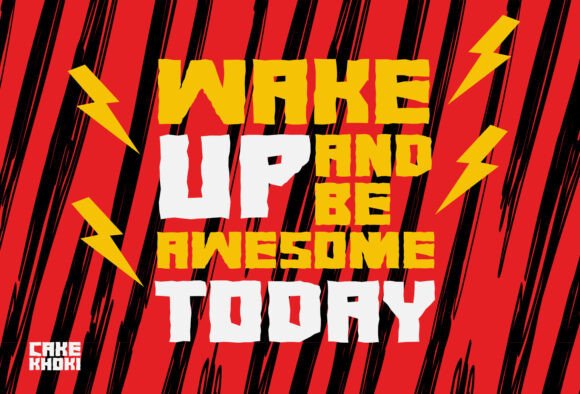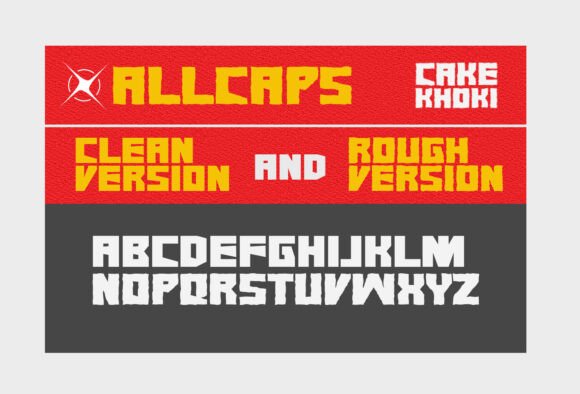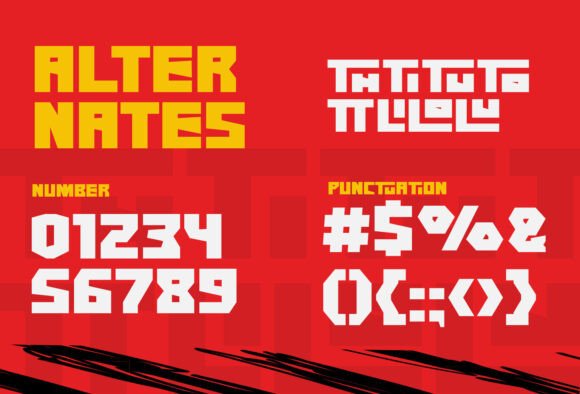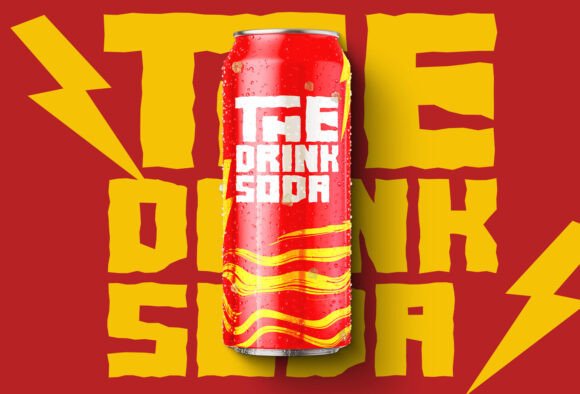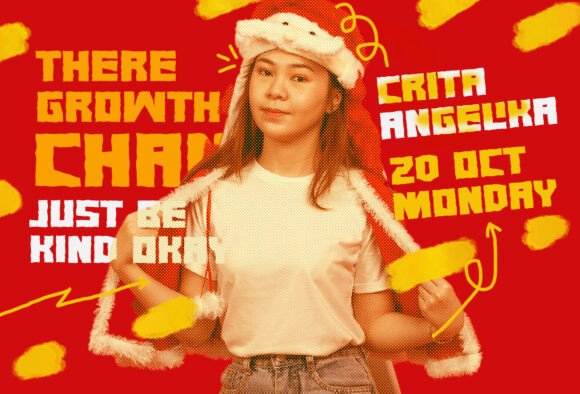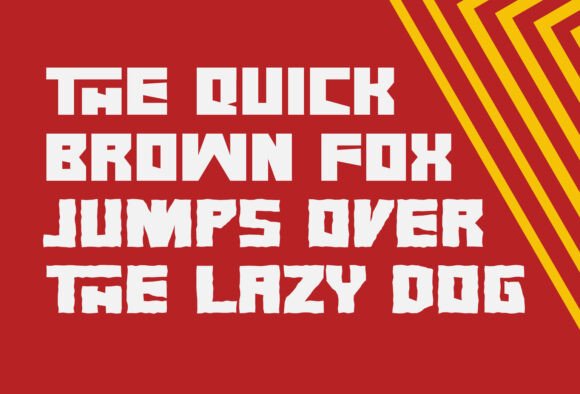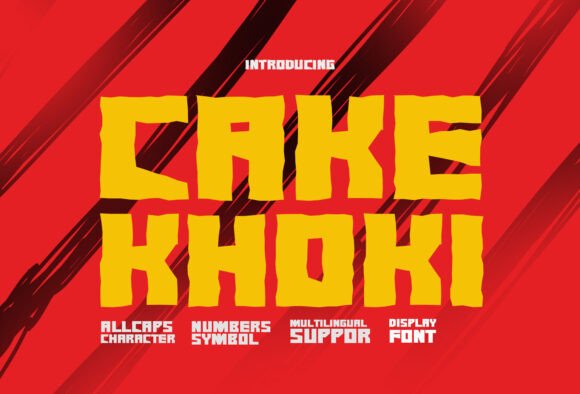
Cake Khoki Font: The Perfect Addition to Your Design Projects
Are you tired of using the same old fonts for your design projects? Look no further than Cake Khoki Font! This bold and playful font is perfect for adding a touch of fun and whimsy to any design. In this article, we’ll take a closer look at Cake Khoki Font, its features, and how you can use it to take your designs to the next level.
What is Cake Khoki Font?
Cake Khoki Font is a bold and playful font that is designed to make your text stand out. Its lively letters add a cheerful and eye-catching touch to any design, making it perfect for fun posters, invitations, and creative projects. Whether you’re a designer, crafter, or DIY enthusiast, Cake Khoki Font is a great addition to your font collection.
Features of Cake Khoki Font
Cake Khoki Font has several features that make it a great choice for designers and crafters. Some of its key features include:
- Bold and Playful: Cake Khoki Font is a bold and playful font that is designed to grab attention.
- Easy to Read: Despite its bold and playful nature, Cake Khoki Font is easy to read, making it perfect for use in a variety of designs.
- Versatile: Cake Khoki Font can be used in a variety of designs, from fun posters and invitations to creative projects and crafts.
- Unique: Cake Khoki Font has a unique and distinctive style that sets it apart from other fonts.
How to Use Cake Khoki Font
Cake Khoki Font is easy to use and can be incorporated into a variety of designs. Here are a few ideas for using Cake Khoki Font:
- Fun Posters: Use Cake Khoki Font to create fun and eye-catching posters for events, promotions, or just for fun.
- Invitations: Add a touch of whimsy to your invitations with Cake Khoki Font, perfect for birthday parties, baby showers, and other celebrations.
- Craft Projects: Use Cake Khoki Font to add a personal touch to your craft projects, such as scrapbooking, card making, and DIY gifts.
- Social Media Graphics: Use Cake Khoki Font to create eye-catching social media graphics, perfect for grabbing attention and engaging your audience.
Tips for Using Cake Khoki Font
Here are a few tips for using Cake Khoki Font effectively:
- Use it Sparingly: While Cake Khoki Font is bold and playful, it can be overwhelming if used too much. Use it sparingly to add emphasis and create visual interest.
- Pair it with Other Fonts: Cake Khoki Font pairs well with other fonts, such as serif and sans-serif fonts. Experiment with different font combinations to find the perfect look for your design.
- Experiment with Colors: Cake Khoki Font looks great in a variety of colors, from bright and bold to pastel and soft. Experiment with different colors to find the perfect look for your design.
Cake Khoki Font is a bold and playful font that is perfect for adding a touch of fun and whimsy to any design. Its lively letters add a cheerful and eye-catching touch to any design, making it perfect for fun posters, invitations, and creative projects. With its versatility, ease of use, and unique style, Cake Khoki Font is a great addition to any designer’s or crafter’s font collection.